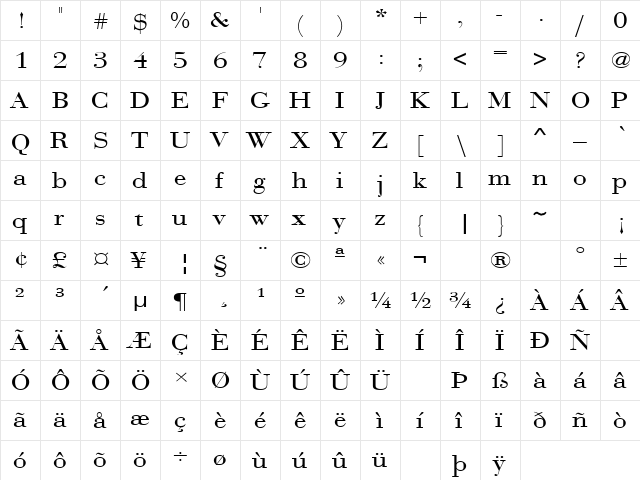
Any Color 2 Regular
Design Context for Any Color 2 Typeface
Any Color 2 is a composed and adaptable typeface that performs quietly and consistently across a wide range of design contexts.
Pro Tip: Use Any Color 2 in both headline and body roles to test its range before committing to a single application.